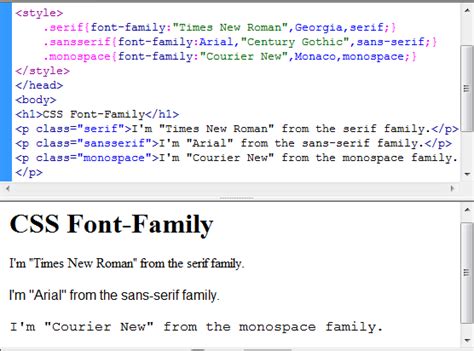
Html Font Script Codes / HTML Code Generator | CSS Code Generator | JavaScript Code ... - Generate the code and paste in your document's <head>.. They are organized into highly regular formal types similar to cursive writing and looser, more casual scripts. Click on character to get html code Script typefaces are based upon the varied and often fluid stroke created by handwriting, pretty much like the cursive fonts just typically more elegant. Instead of it, use css styles (see an example below). Choose any font like open sans or droid serif or lato.
Free copy/paste html font codes for your website. In this list, you find the 15 best fonts that work with html and css. Web safe fonts are available across different operating systems and devices. Sure that any html element you reference in the script has already been. The font property is shorthand code that allows you to set multiple font properties in one go.
For example, the above code will generate random quotes. The style attribute specifies an inline style for an element. They are organized into highly regular formal types similar to cursive writing and looser, more casual scripts. Generate the code and paste in your document's <head>. On this page i won't show any tricks, but i will show the range of font variations that css allows. Instead of it, use css styles (see an example below). Html fonts play a big role in a website's appearance and readability. The first two characters refer to red hues, the second two refer to green, and the last two refer to blue.
The code of the above example is heaven help you if you use the same code, but trade the p elements for h1.
Euclid fraktur (a fantasy font). Since not all fonts are available on all computers (there are thousands of fonts, and most are not free), css provides a system of. This font features a calligraphy style based on handwriting techniques. These can add up, as shown in the next example. This customization of texts in web pages can be done at any moment of html coding. You can always come back for html script font codes because we update all the latest coupons and special deals weekly. Size, color and typeface are defined by the size the <font> tag is a deprecated html tag. The code of the above example is heaven help you if you use the same code, but trade the p elements for h1. Fonts where every character has the same width, typically used in code listings. Place your script tags just before the closing of the body tag. Html fonts play a big role in a website's appearance and readability. Web safe fonts are available across different operating systems and devices. The font property is shorthand code that allows you to set multiple font properties in one go.
To change the text font in html, use the style attribute. These can add up, as shown in the next example. Fonts where every character has the same width, typically used in code listings. This font features a calligraphy style based on handwriting techniques. That way, you can be.
Whether you're aware or not, an html font plays a 18. Script typefaces are based upon the varied and often fluid stroke created by handwriting, pretty much like the cursive fonts just typically more elegant. The code of the above example is heaven help you if you use the same code, but trade the p elements for h1. You can always come back for html script font codes because we update all the latest coupons and special deals weekly. Euclid fraktur (a fantasy font). Html fonts play a big role in a website's appearance and readability. Choose any font like open sans or droid serif or lato. In this list, you find the 15 best fonts that work with html and css.
The above font code sets common properties such as font size, line height, font family, and font color.
Fonts where every character has the same width, typically used in code listings. Whether you're aware or not, an html font plays a 18. Just keep in mind, the usage of style attribute overrides any style set globally. Size, color and typeface are defined by the size the <font> tag is a deprecated html tag. Web safe fonts are available across different operating systems and devices. These can add up, as shown in the next example. Generate the code and paste in your document's <head>. If you're working with an older version of html html color codes are broken up as follows:
For example, the above code will generate random quotes.
They are organized into highly regular formal types similar to cursive writing and looser, more casual scripts. Php tutorials php scripts demos wordpress tutorials laravel tutorial. If you're working with an older version of html html color codes are broken up as follows: In conjunction with correlating font properties. While the html font tag is obsolete in html5, you can use css to add color to your html page's text. Just keep in mind, the usage of style attribute overrides any style set globally. Click on character to get html code You can always come back for html script font codes because we update all the latest coupons and special deals weekly. Now how do i change the font family as a result of clicking the button from this code? The style attribute specifies an inline style for an element. The font property is shorthand code that allows you to set multiple font properties in one go. Below are 48 working coupons for html script font codes from reliable websites that we have updated for users to get maximum savings. Free copy/paste html font codes for your website.